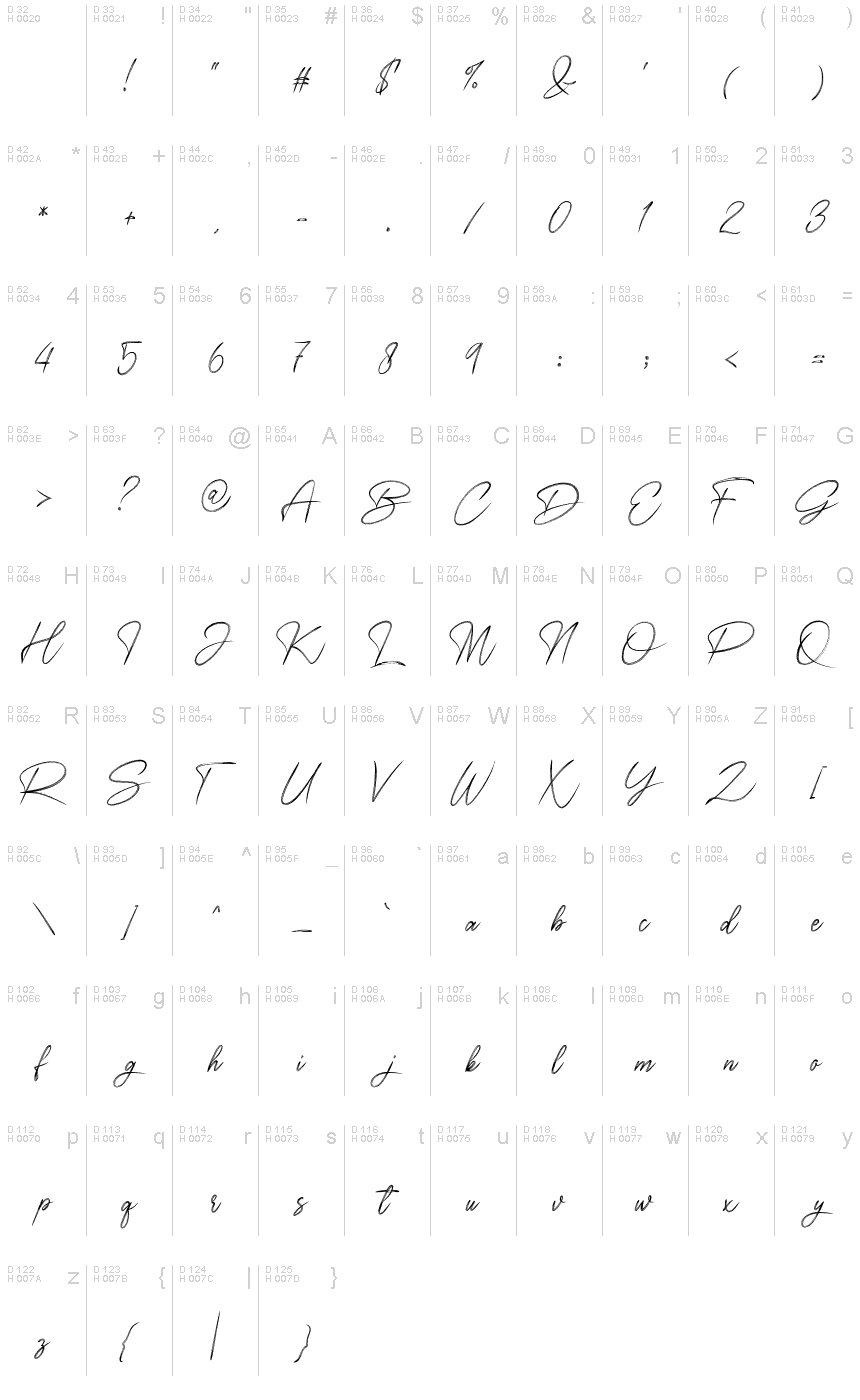
SignatureChristmasRegular
Signature Christmas font is a beautiful script font designed by Scratchones.
the latest style letters are perfect for wall displays, wedding invitations, social media post logos,
advertisements, product packaging, product designs, labels, photography, watermarks, invitations, stationery,
and any project that requires taste handwriting.